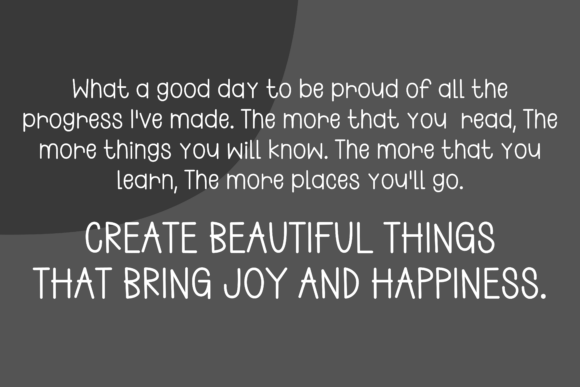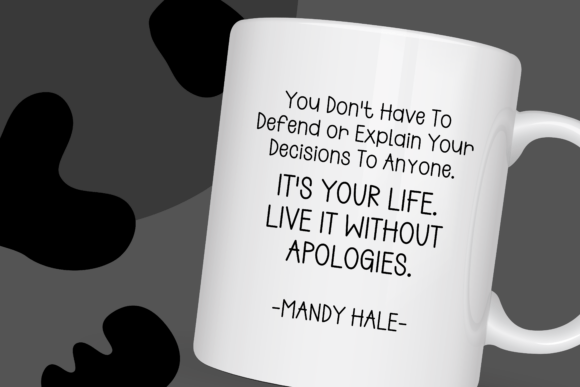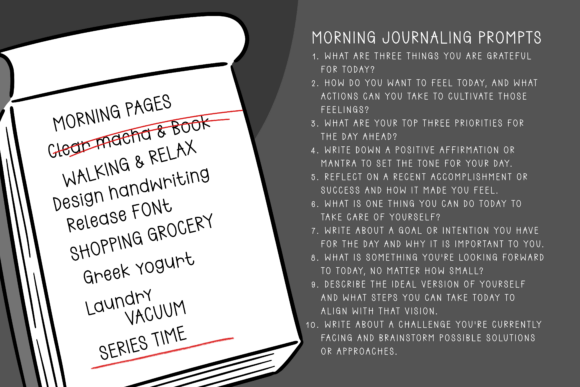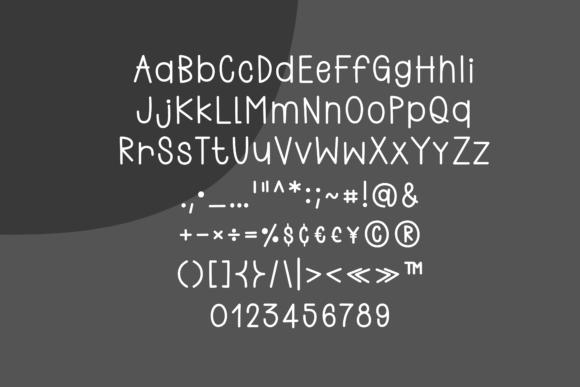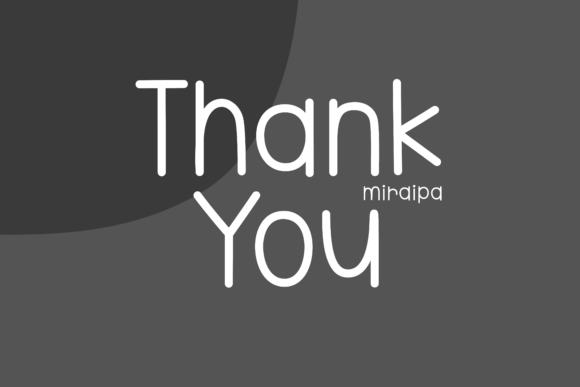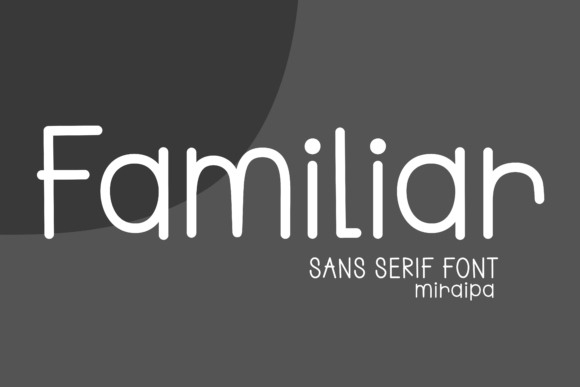
Welcome to the Effortless Charm of Familiar Font
In the world of typography, a good font can make all the difference in the success of a design project. For designers and crafters looking for a clean, friendly, and highly legible sans-serif font, look no further than Familiar. This mono-weight font is designed to bring a supreme level of readability and a welcoming, contemporary feel to any design project.
Characteristics of the Familiar Font
The Familiar font is characterized by its mono-weight, rounded terminals, and slightly condensed proportions. These features give it a playful yet modern minimalist aesthetic that is sure to capture the attention of designers and crafters alike. The simple, geometric structure of the font ensures that it is incredibly readable at both display and body text sizes, making it a highly versatile and dependable workhorse font.
A Versatile Font for Various Design Applications
The Familiar sans serif font is perfectly suited for a wide range of design applications, including user interfaces, mobile apps, educational materials, children’s branding, casual logos, and any design requiring a warm, unpretentious, and clear voice. Its clean lines and approachable look make it feel instantly recognizable and familiar, making it an excellent choice for designers looking to create a cohesive brand identity.
Perfect for Body Text and Display Sizes
One of the standout features of the Familiar font is its ability to perform well at both display and body text sizes. Whether you are designing website body text, product labels, or a casual greeting card, this font provides reliability and a charming, down-to-earth appeal. The font’s clean lines and simple structure ensure that it remains legible even at smaller sizes, making it an excellent choice for designers who need a font that can adapt to different design requirements.
Why Choose the Familiar Font?
So why choose the Familiar font over other sans-serif fonts on the market? For starters, its unique combination of mono-weight and rounded terminals gives it a distinctive look that sets it apart from other fonts. Additionally, its high level of legibility makes it an excellent choice for designers who need to create clear and concise communication. Whether you are designing for a client or working on a personal project, the Familiar font is an excellent choice for any design project that requires a warm, unpretentious, and clear voice.
Design Applications for the Familiar Font
The Familiar font is suitable for a wide range of design applications, including:
- User interfaces: The font’s clean lines and simple structure make it an excellent choice for user interface design.
- Mobile apps: The font’s legibility and adaptability make it well-suited for mobile app design.
- Educational materials: The font’s friendly and approachable look make it an excellent choice for educational materials.
- Children’s branding: The font’s playful and modern aesthetic make it well-suited for children’s branding.
- Casual logos: The font’s simple and geometric structure make it an excellent choice for casual logos.
In conclusion, the Familiar font is an excellent choice for designers and crafters looking for a clean, friendly, and highly legible sans-serif font. Its unique combination of mono-weight and rounded terminals gives it a distinctive look that sets it apart from other fonts, while its high level of legibility makes it an excellent choice for designers who need to create clear and concise communication. Whether you are designing for a client or working on a personal project, the Familiar font is an excellent choice for any design project that requires a warm, unpretentious, and clear voice.
Get Familiar with the Familiar Font